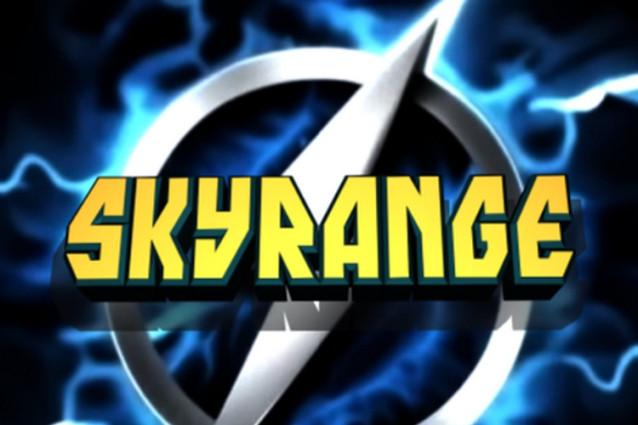
skyrange Font Family is a simple and modern display font suitable for quotes, logos, headings, titles, and many more. Use it on any of your creative projects, and your designs will become outstanding!
skyrange Font Family
| Classification: | Display Fonts, Modern Fonts |